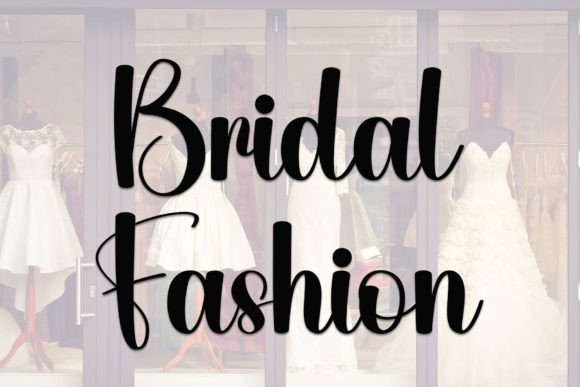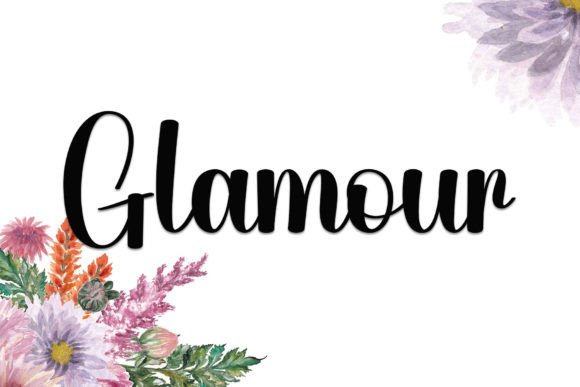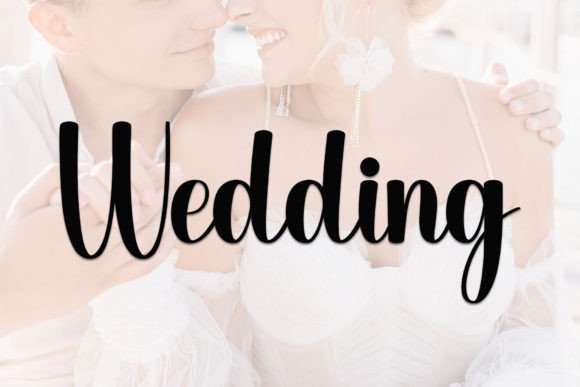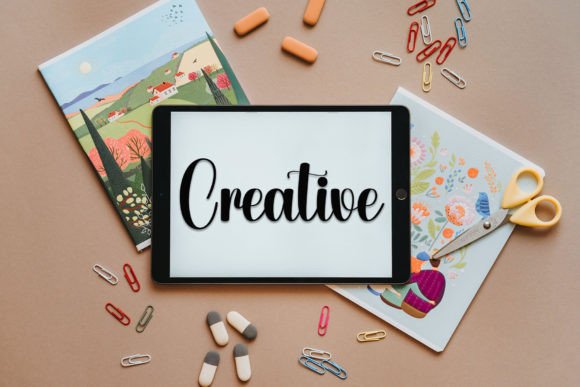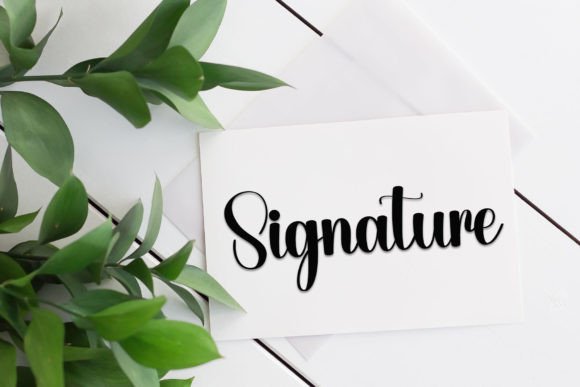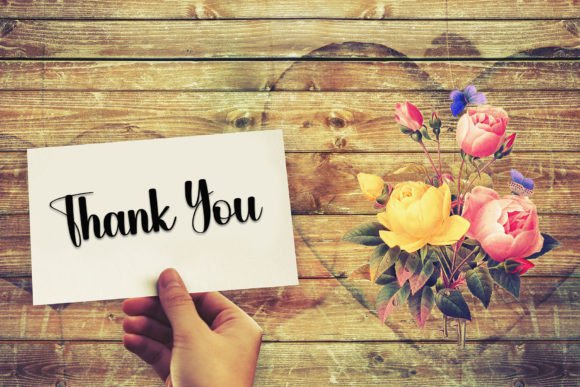
Hanger Font: Elevate Your Designs with Elegance and Timeless Style
Are you on the hunt for a font that exudes elegance, sophistication, and a touch of timeless charm? Look no further than the Hanger Font, a stunning handwritten font that is sure to capture your heart. With its incredibly distinct and beautiful style, Hanger is the perfect addition to your favorite projects, allowing you to create spectacular designs that stand out from the crowd.
The Essence of Hanger Font
Hanger Font is described by its elegant touch, which sets it apart from other fonts in the market. Its neat and beautiful handwritten style makes it an excellent choice for designers and crafters who want to add a personal touch to their work. Whether you’re creating a logo, branding materials, or social media graphics, Hanger Font is sure to impress.
Key Features of Hanger Font
- Elegant and Timeless Style: Hanger Font boasts an incredibly distinct and timeless style that will make your designs stand out.
- Handwritten with Love: This beautiful handwritten font is perfect for adding a personal touch to your projects.
- Neat and Beautiful: Hanger Font’s neat and beautiful style makes it suitable for a wide range of design applications.
- Versatile: Use Hanger Font for logos, branding materials, social media graphics, and more.
Why Choose Hanger Font?
With so many fonts available, why choose Hanger Font? Here are just a few reasons why designers and crafters are falling in love with this beautiful font:
- Unique and Distinctive: Hanger Font’s elegant style sets it apart from other fonts, ensuring your designs will be noticed.
- Easy to Read: Despite its elegant and cursive nature, Hanger Font remains easy to read, making it perfect for body text and headlines.
- Customizable: Experiment with different colors, sizes, and styles to make Hanger Font your own.
- Support for Multiple Languages: Hanger Font supports multiple languages, making it a great choice for global brands and designers.
Design Ideas with Hanger Font
Now that you’re smitten with Hanger Font, here are some design ideas to get you started:
- Logo Design: Create a stunning logo for your brand or business using Hanger Font.
- Social Media Graphics: Elevate your social media presence with eye-catching graphics featuring Hanger Font.
- Wedding Invitations: Add a touch of elegance to your wedding invitations and stationery with Hanger Font.
- Branding Materials: Use Hanger Font for business cards, brochures, and other branding materials.
In conclusion, Hanger Font is a beautiful and elegant handwritten font that is sure to capture your heart. With its timeless style, neat and beautiful design, and versatility, it’s the perfect addition to your favorite projects. Whether you’re a designer, crafter, or DIY enthusiast, Hanger Font is an excellent choice for creating spectacular designs that stand out from the crowd.